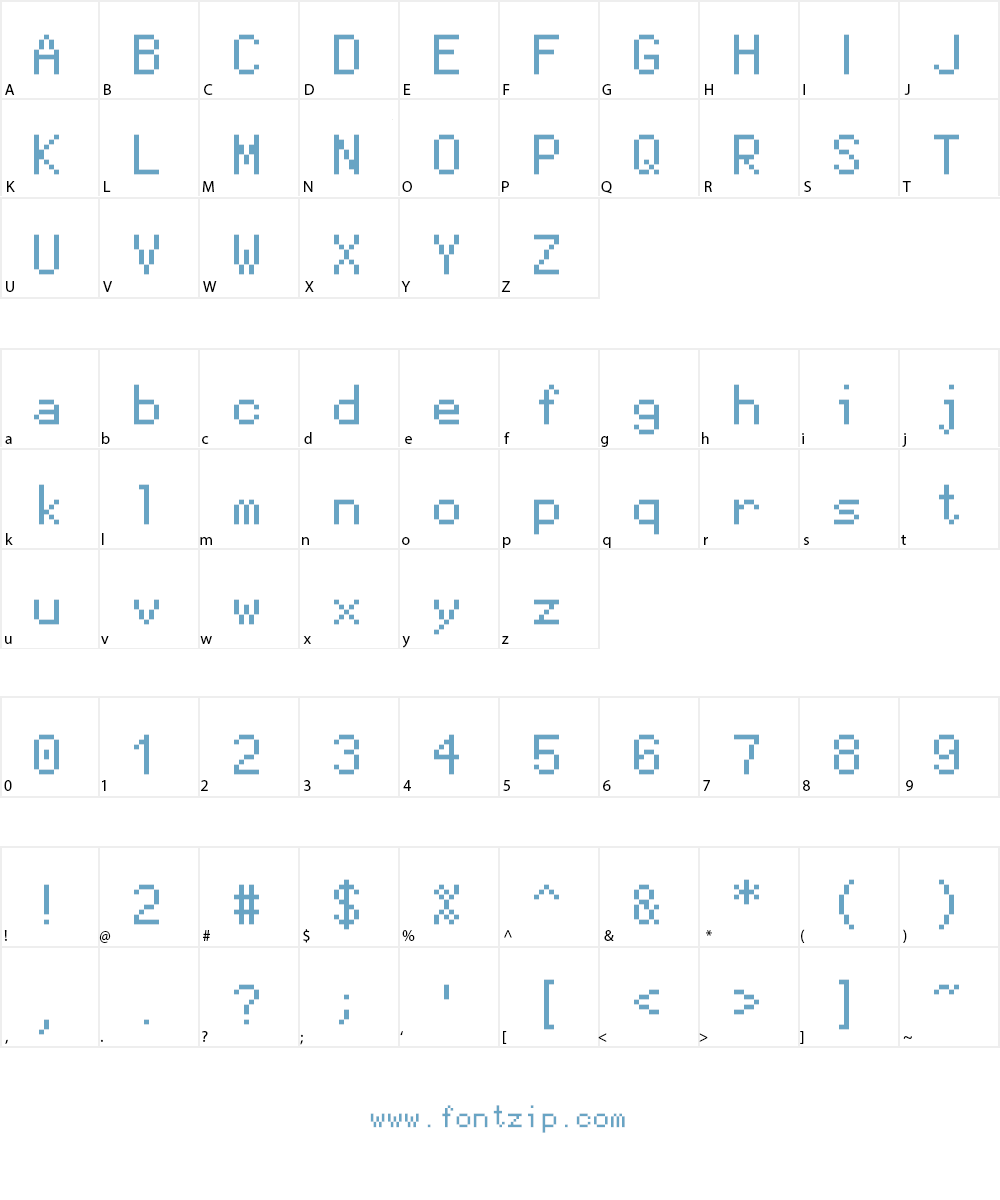
Custom Font ttf is a fake bitmap font that has Unicode support and has 6×12 and 8×16 versions.
Versions 1.0, 2.0 and 3.0 denote the Unicode coverage and have nothing to do with the development versions.
Version 1.0 contains 678 characters which is WGL4 plus the characters ƏəȘșȚțḂḃḊḋḞḟṀṁṖṗṠṡṪṫ� for additional support of VSECS, ISO 8859-14 and ISO 8859-16.
Version 2.0 contains 1193 characters which covers WGL4, MES-2, SECS, W1G and basic IPA. It is the same character coverage as DMCA Sans Serif 8.1.
Version 3.0 contains 2823 characters which covers MES-3B plus the characters ✓✗ which are in SECS but not in MES-3B.